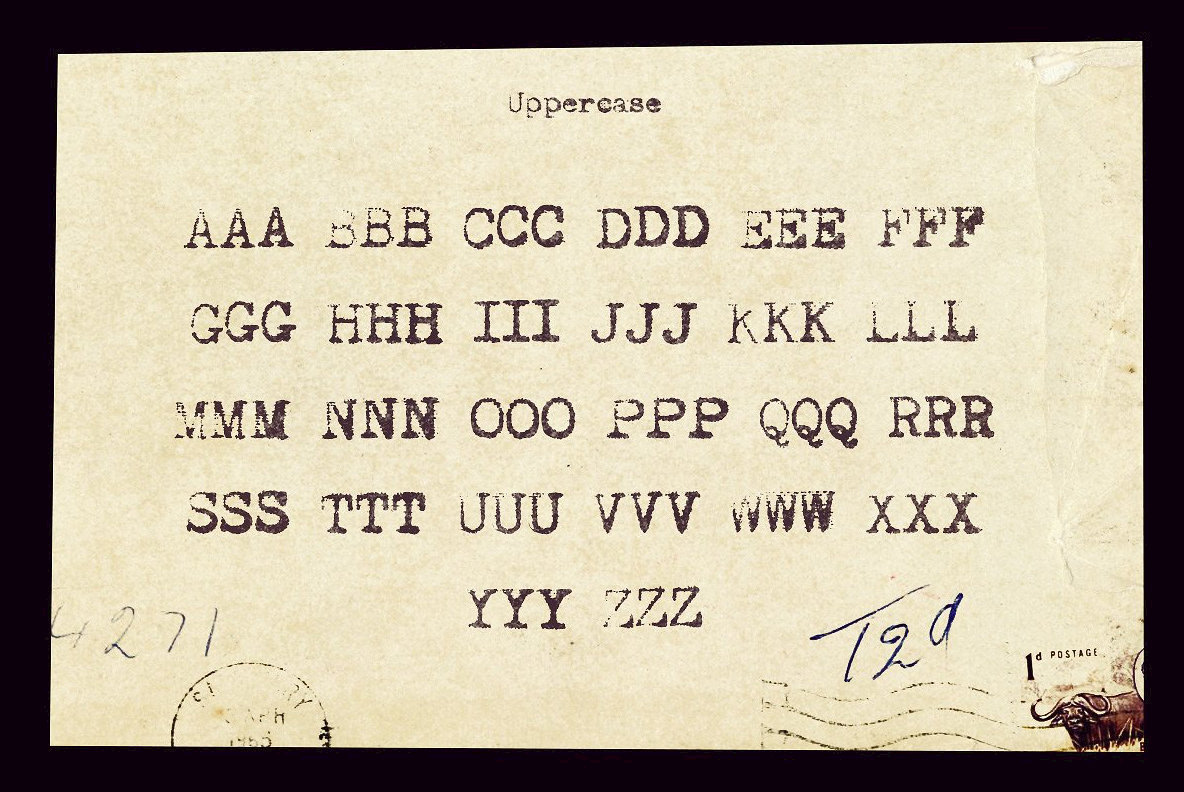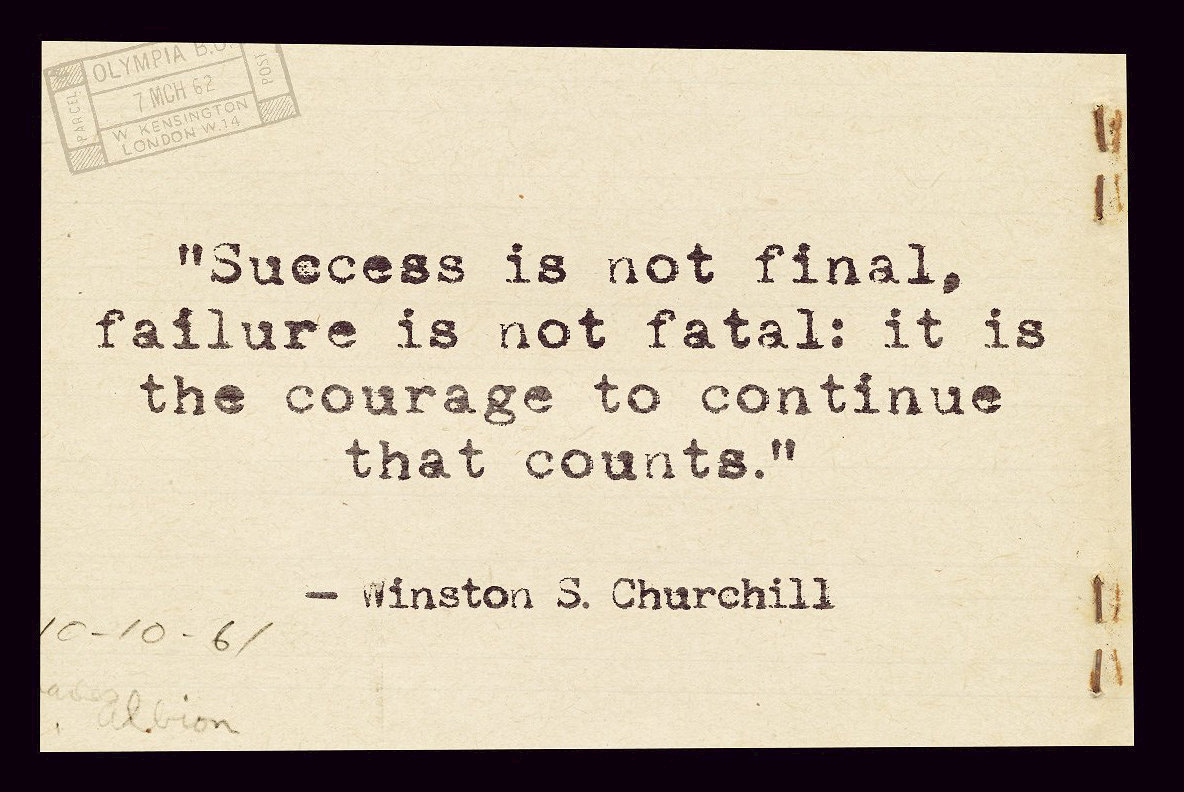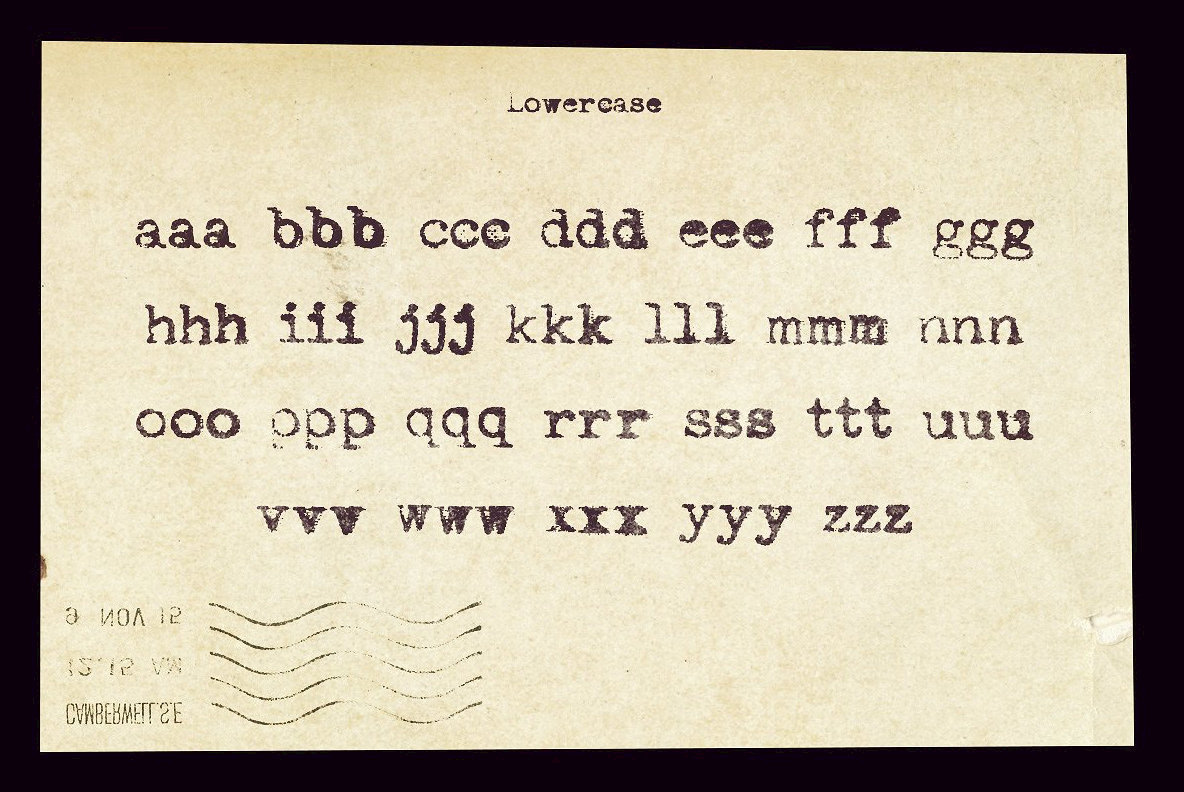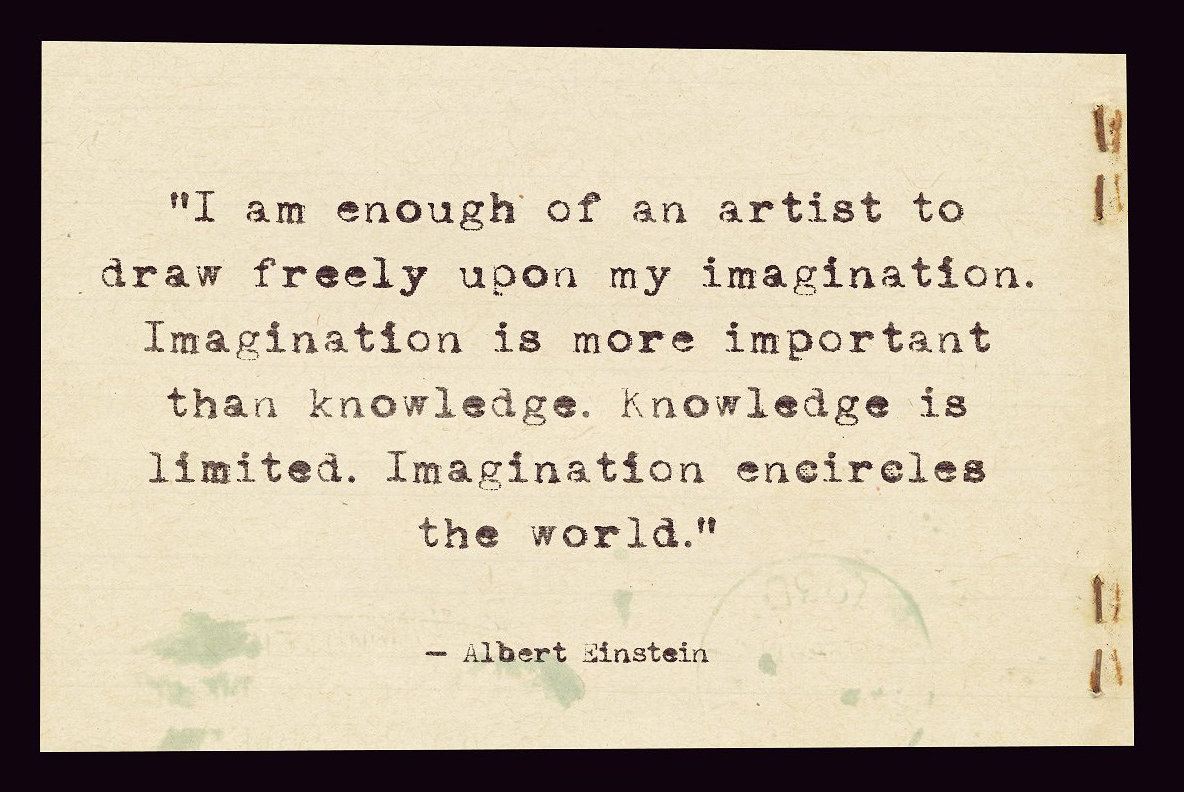
Not my type Font
Not My Type
Not my type font was created with a real typewriter. To be specific it was on Oliver courier typewriter that I bought at an antiques market.
I originally bought it for one of my image packs but it seemed to make sense to create a typeface from it.
Contextual Alternatives
I created 3 versions of every letter and number that get progressively bolder. If you enable contextual alternatives in your design application the letters will change automatically as you type.
The aim was to make it look more random, like a real typewriter.
Lot of detail
I went to great trouble to keep the detail from my original scans. I've yet to see another typewriter font that has the same amount of detail as this one.
If you want your design to have that nostalgic type effect this is perfect. It's old fashioned and retro with just a hint of grunge.